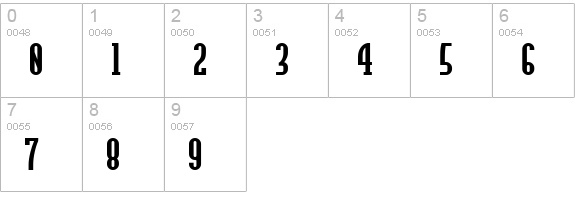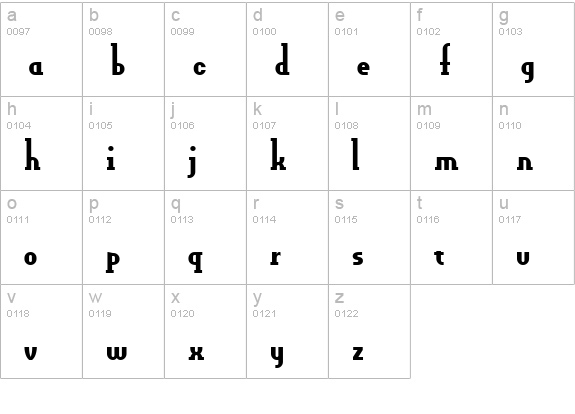
OLDNEW Axis Font Details
Introducing OLDNEW Axis font, a stylish and modern typeface that strikes the perfect balance between classic elegance and contemporary flair. With its sleek lines and unique geometric shapes, OLDNEW Axis is the perfect choice for projects that require a touch of sophistication and creativity. This versatile font is ideal for a wide range of design applications, from branding and advertising to web design and print materials. Its bold yet elegant appearance makes it easy to read and visually appealing, ensuring that your message stands out in any context. And the best part? OLDNEW Axis font is completely free to download at FontsMarket.com. So whether you're a seasoned designer looking for a fresh new font or a novice searching for the perfect typeface to elevate your project, OLDNEW Axis is the ideal choice. Download it today and see for yourself the impact this stunning font can have on your designs.